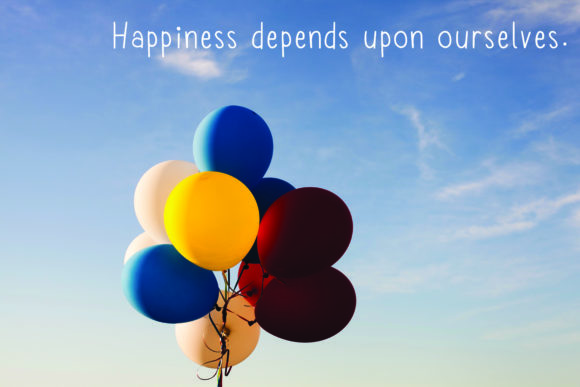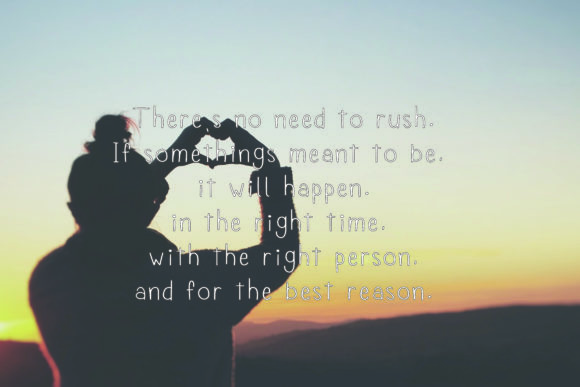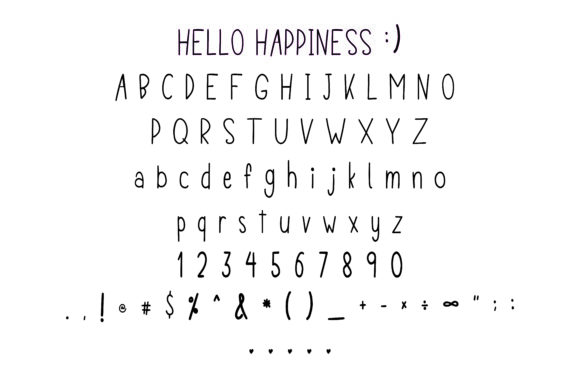
Introduction to Hello Happiness Font
Hello Happiness is a sweet and casual handwritten font that will add a sophisticated flavor to your next project.
Key Features of Hello Happiness Font